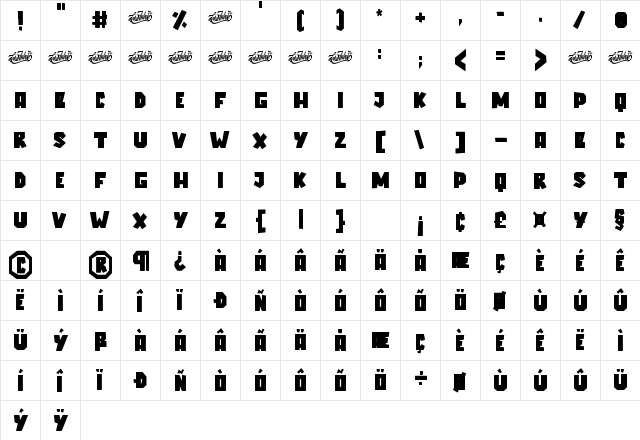
Elcatraz Regular
| Designer | Almarkhatype 2020 - Abdul Malik - Ghazy - Adhy |
Design Context for Elcatraz Typeface
Elcatraz is a composed and adaptable typeface that performs quietly and consistently across a wide range of design contexts.